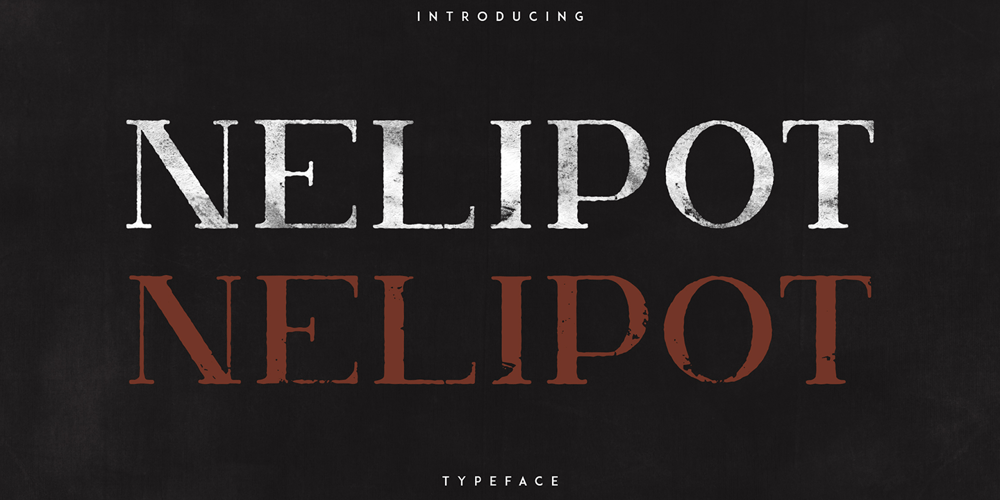
Nelipot VP
Nelipot VP font
Nelipot VP Font Family was designed by Vladimir Fedotov, Plamen Petrov and published by VP Creative Shop. Nelipot VP contains 2 styles and family package options. Introducing Nelipot VP TypefaceNelipot is perfect for branding projects, home-ware designs, product packaging, magazine headers – or simply as a stylish text overlay to any background image.–Uppercase